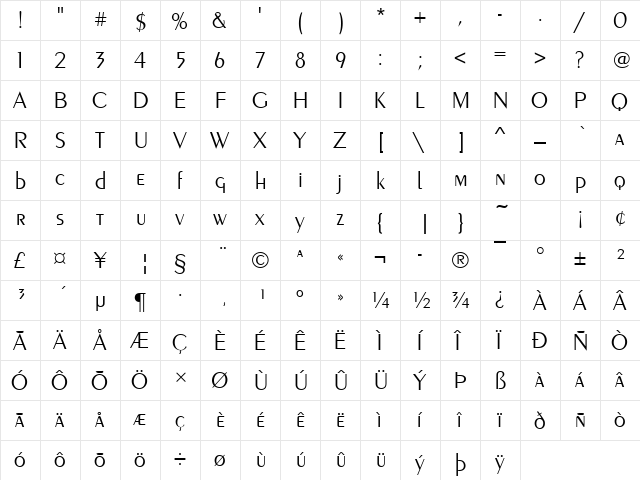
PeignotDLig Regular Font Preview
PeignotDLig Regular
PeignotDLig Regular Font Details
Design Context for PeignotDLig Typeface
PeignotDLig is a composed and adaptable typeface that performs quietly and consistently across a wide range of design contexts.